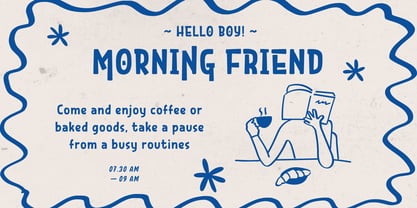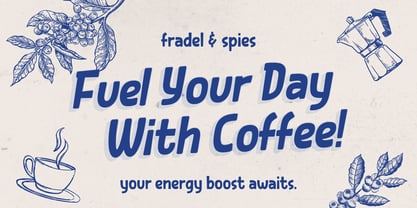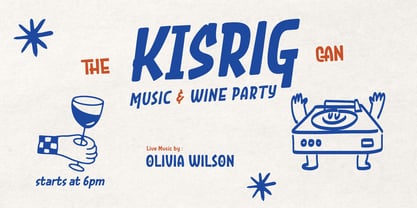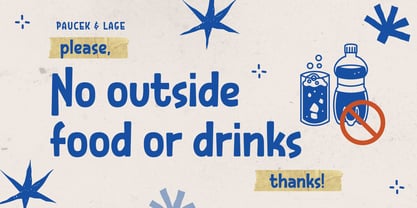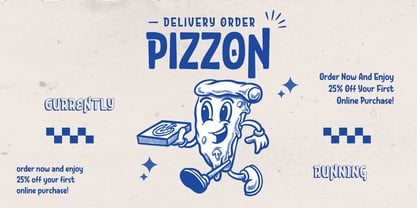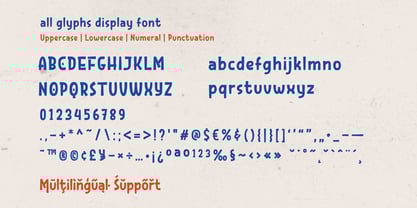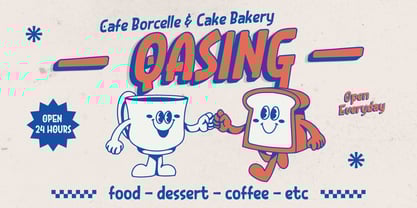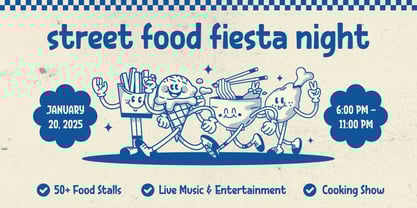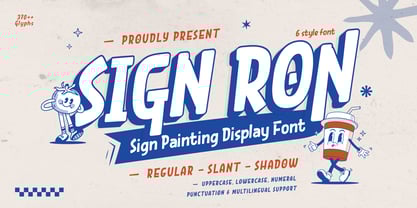
Sign Ron
Die Schriftfamilie Sign Ron wurde von Murozakul Akhsan entworfen und von Trabas Kriya veröffentlicht. Sign Ron enthält 4 Stile und Familienpaketoptionen.
Introducing Sign Ron, a classic sign painting display font that brings vintage charm and bold craftsmanship to your designs. Featuring four versatile styles—Regular, Slant, Shadow Regular, and Shadow Slant—Sign Ron offers flexibility and layered creativity for a wide range of projects.
With its hand-painted feel, elegant curves, and impactful strokes, this font is perfect for storefront signs, café menus, logo designs, packaging, event posters, and retro branding. The shadow variations allow you to create depth and a standout 3D effect effortlessly.
Whether you’re aiming for a nostalgic vintage vibe or a modern retro twist, Sign Ron gives your typography an authentic sign painter’s touch. Perfect for designers who want to capture attention with bold, artistic flair.
- All glyphs and Feature
- Fonts include Multilingual: Support for 85 languages